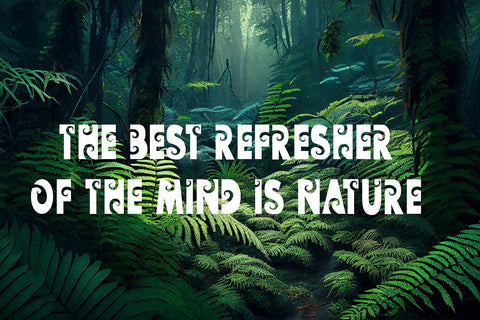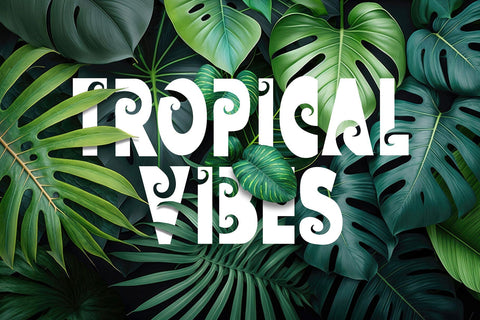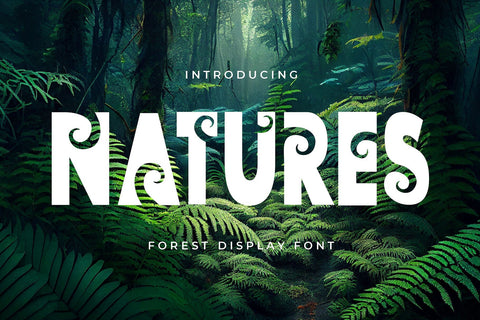
Natures - Decorative Display Font
"Natures" is a display font with decorative floral motifs encircling the ends of each character. This font brings a touch of nature and natural beauty into your typography. The letterforms adorned with circular flowers provide an artistic and organic appearance, making it suitable for designs that aim to express the beauty of nature or natural elements.